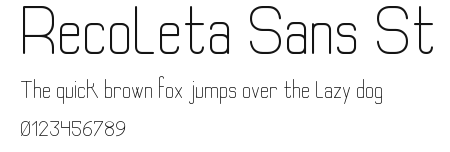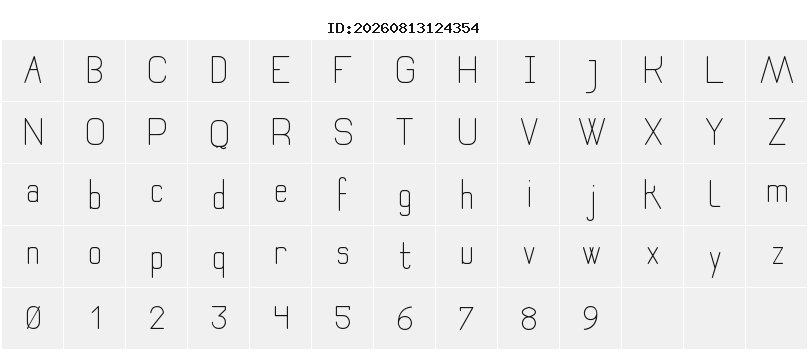
• Font Name: Recoleta Sans St
About Recoleta Sans St.ttf
Recoleta Sans St.ttf is a modern, elegant sans-serif font designed for ultimate readability and visual harmony. Perfect for branding, headlines, web design, and print materials.